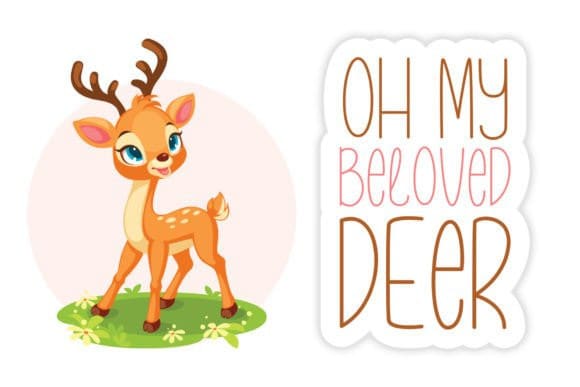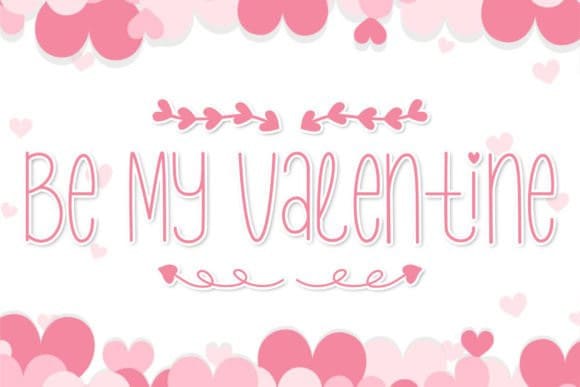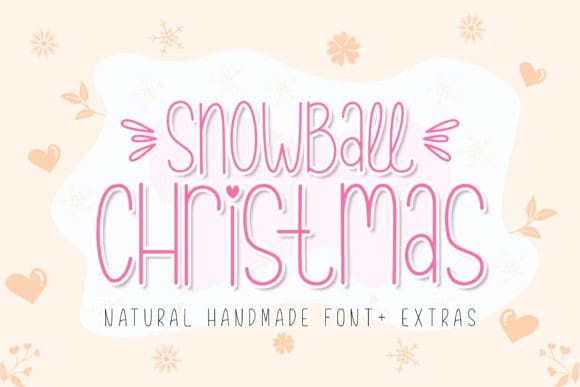
Snowball Christmas Font
Snowball Christmas Font is a handwritten font that is perfect for Christmas events and designs. It has cute doodle extras that make it even more special. The font is versatile and can be used for branding, product packaging, invitations, quotes, t-shirts, labels, posters, logos, and anything that you want to develop. You can use this font to create a unique and festive look for your Christmas projects.